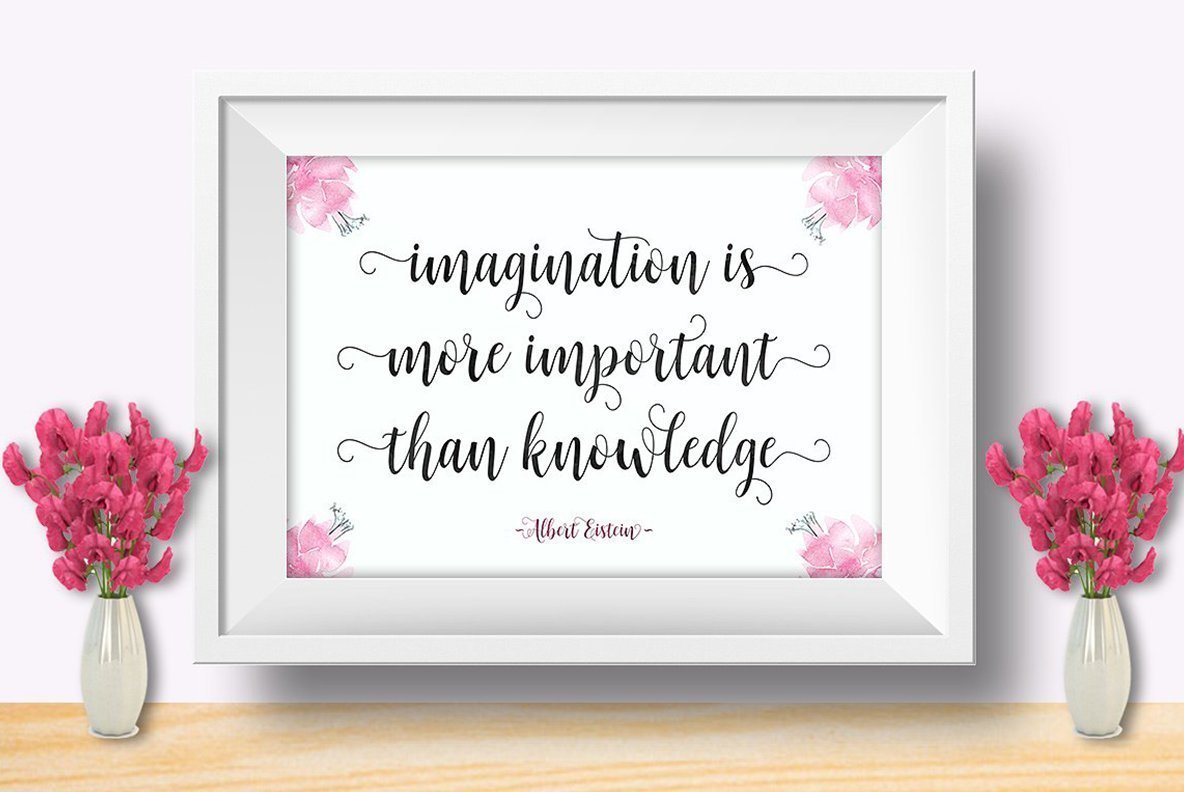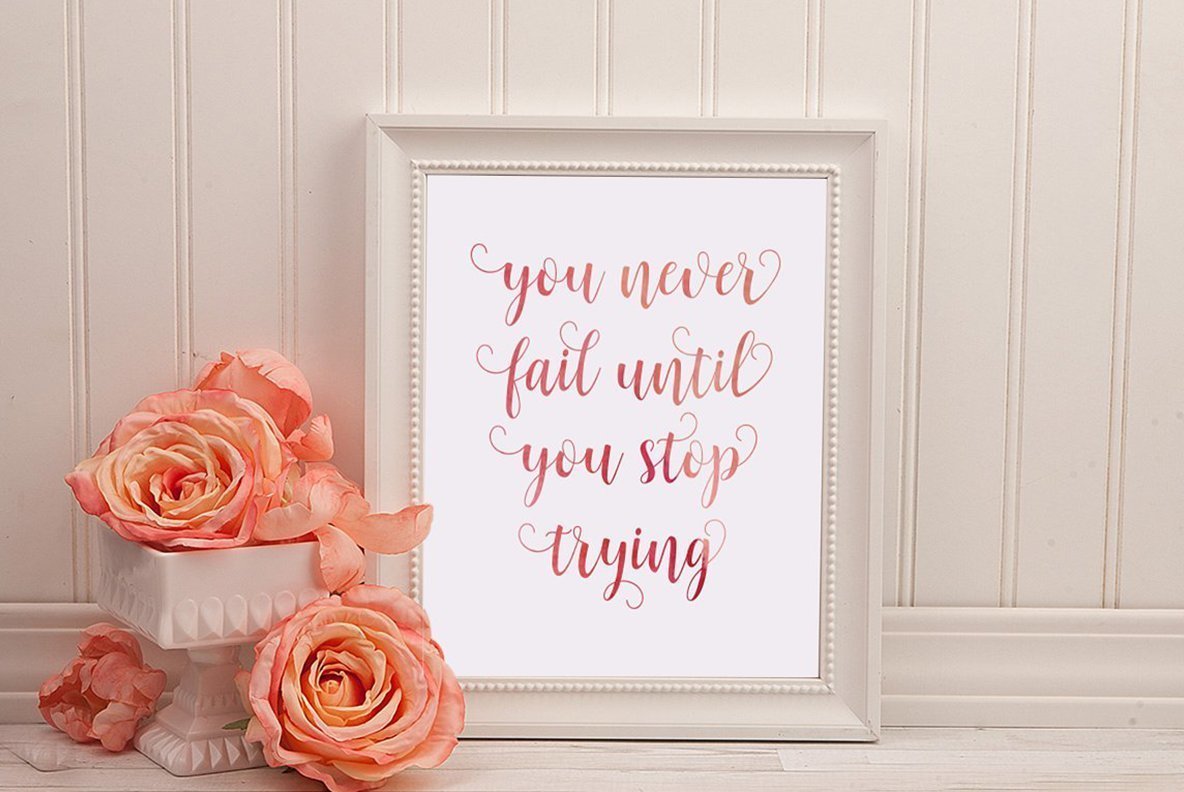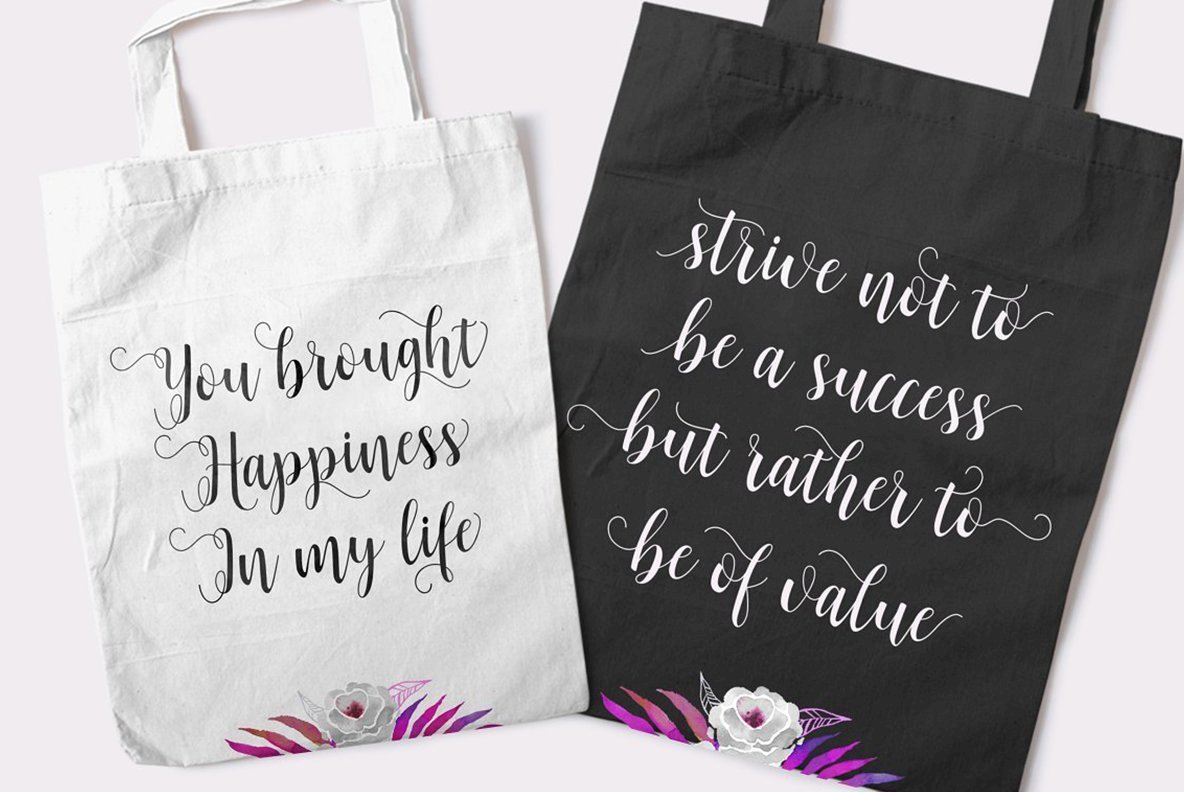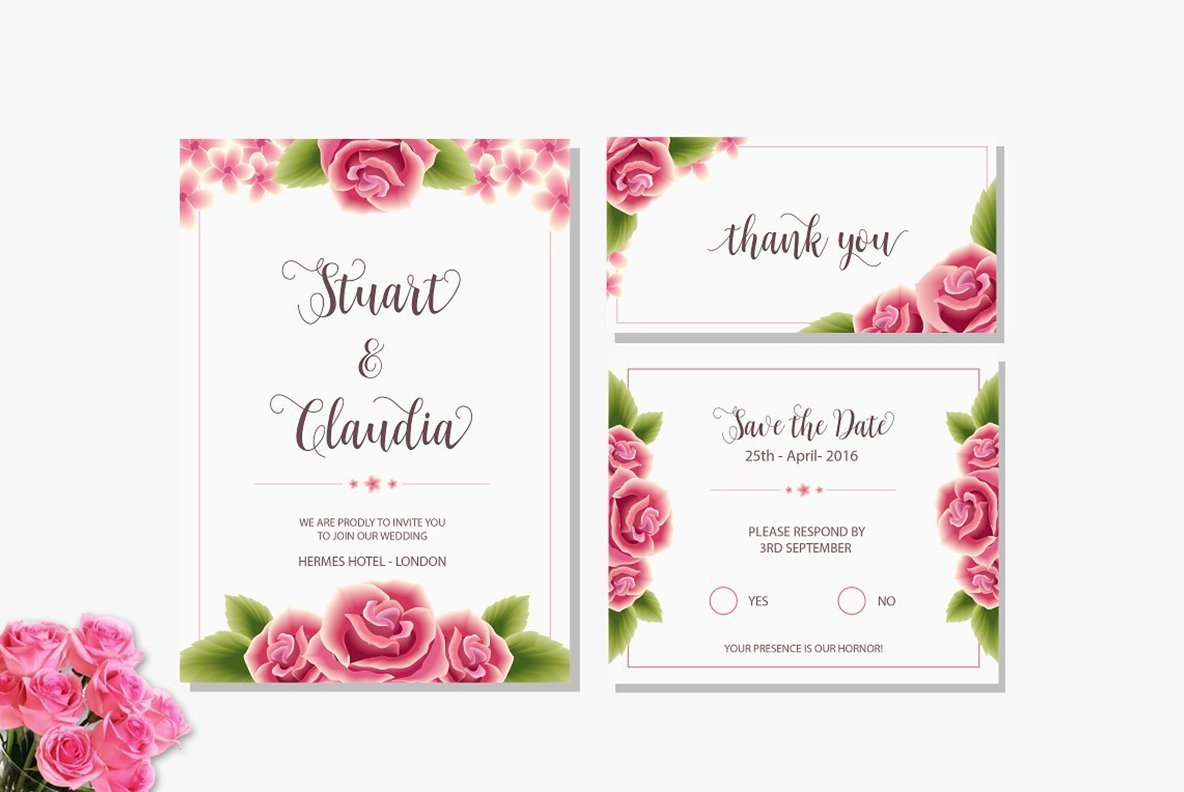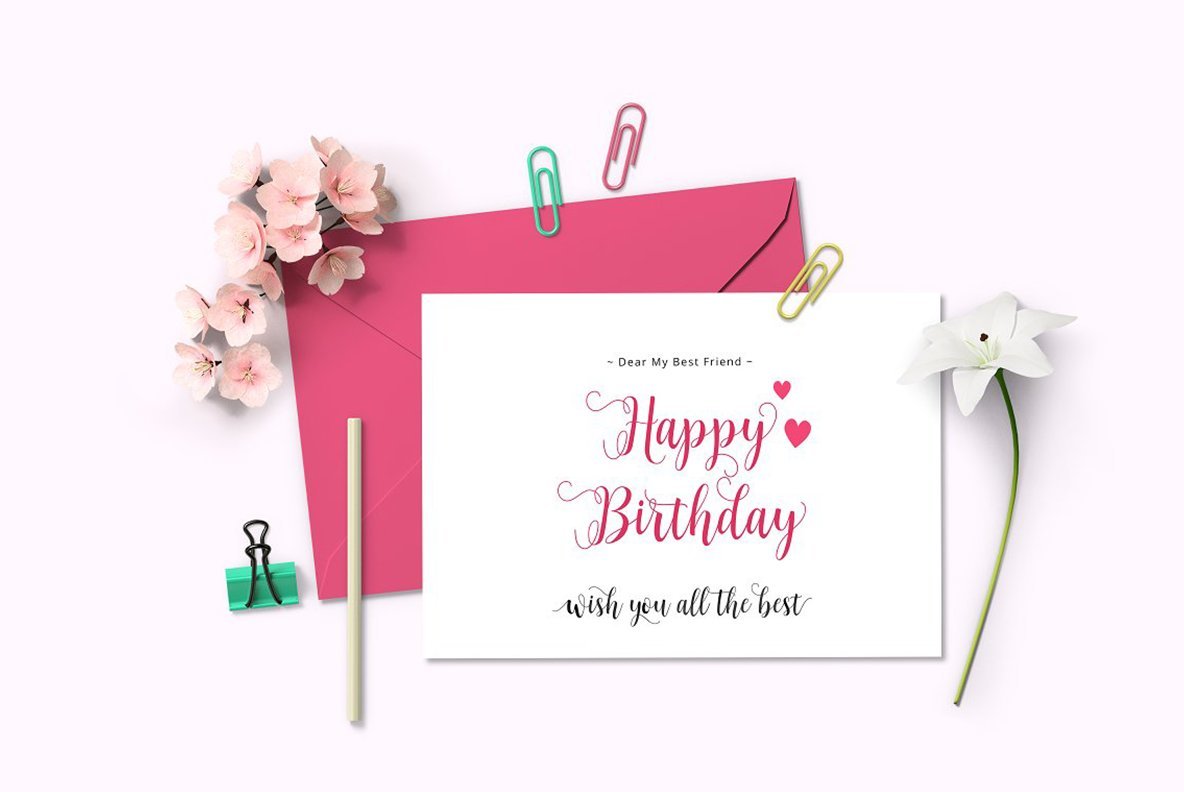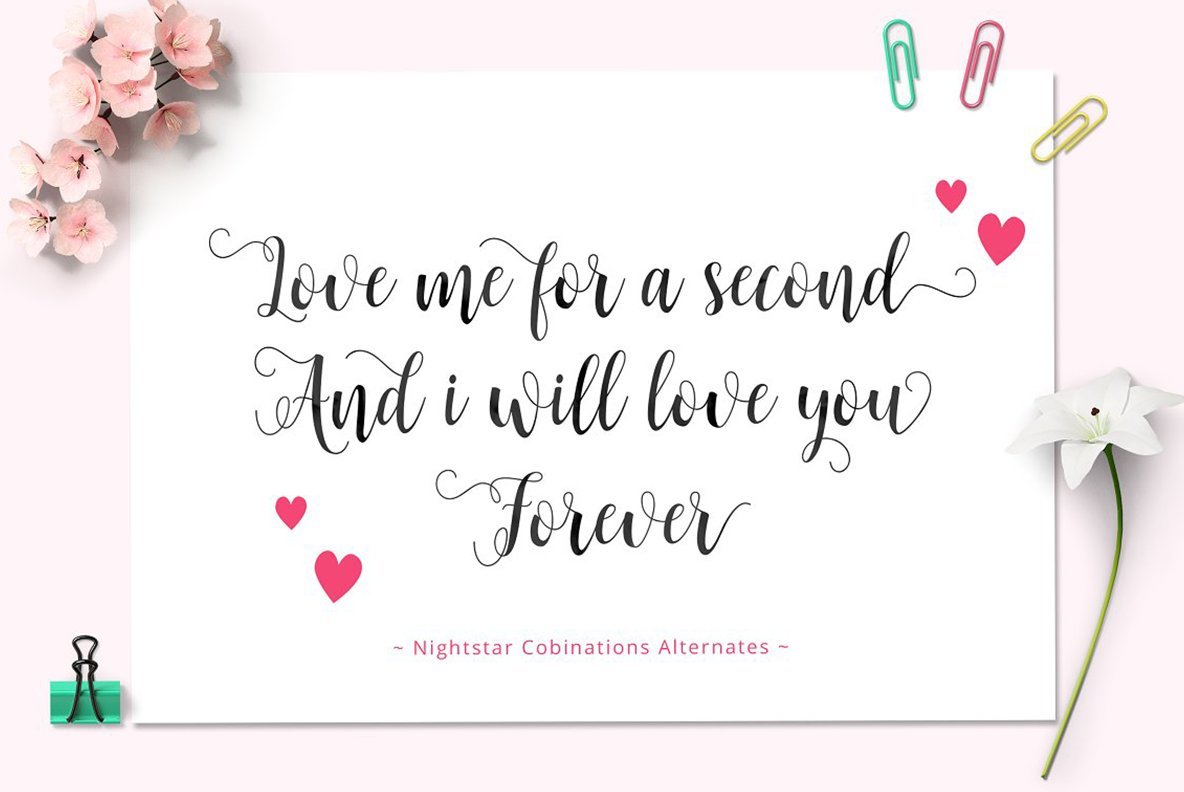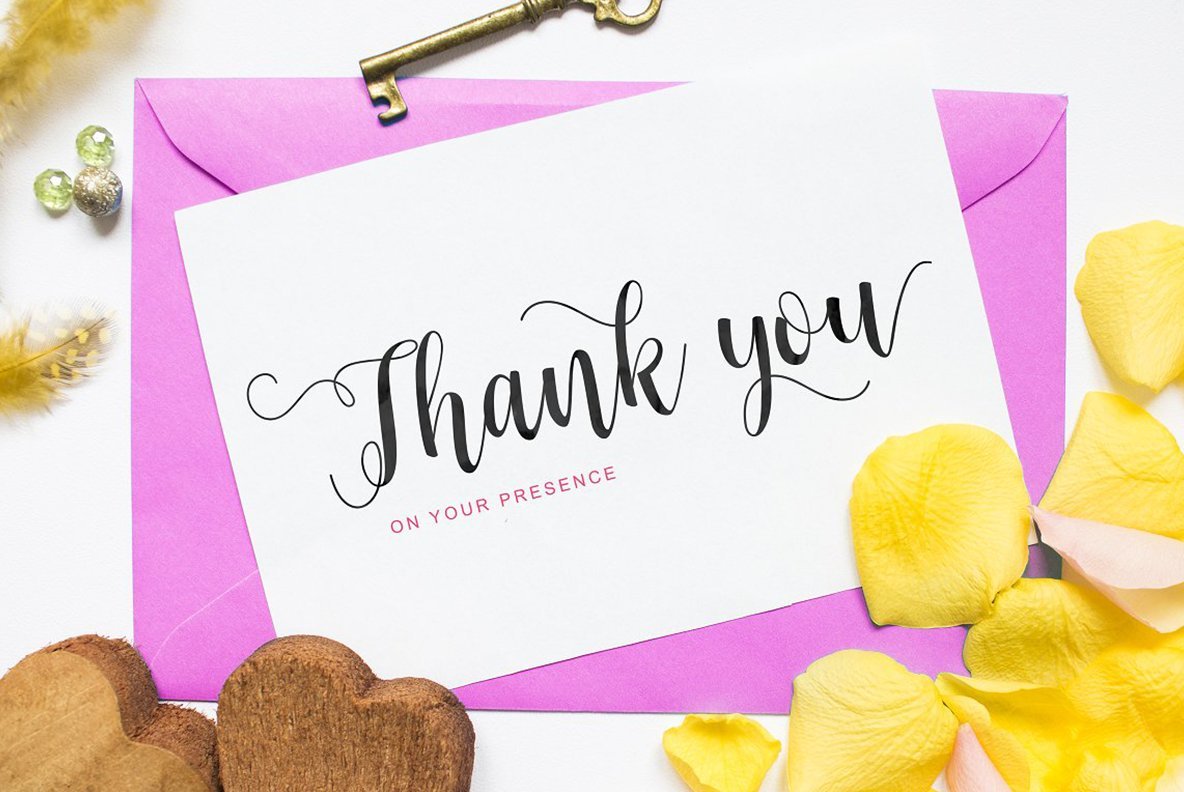
Nightstar Font
Nightstar
Nightstar is a script design published by Unicode Studio.
- Initial Alternates
- Contextual Alternates
- Standard ligatures
- Unique ligatures
- Stylistic Alternates
- Stylistic sets
- Basic Latin A-Z and a-z
- Numbers
- International Symbols Support